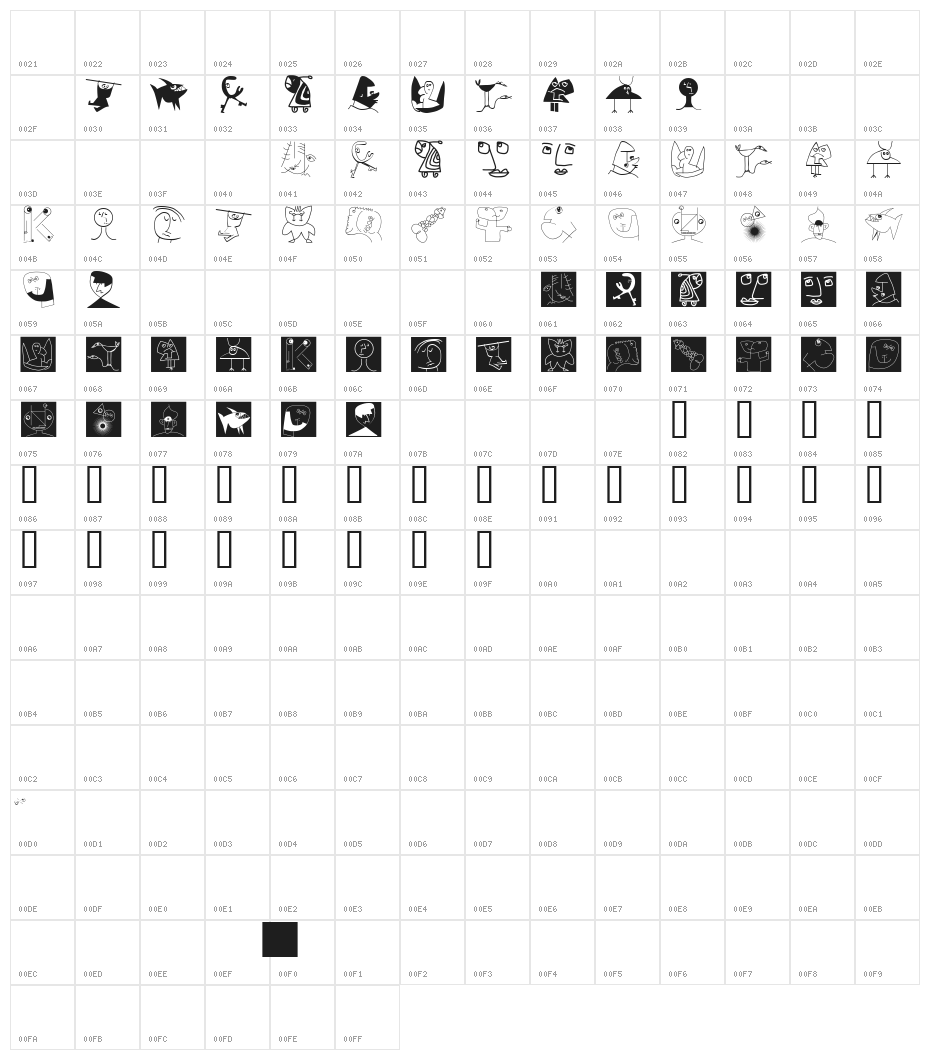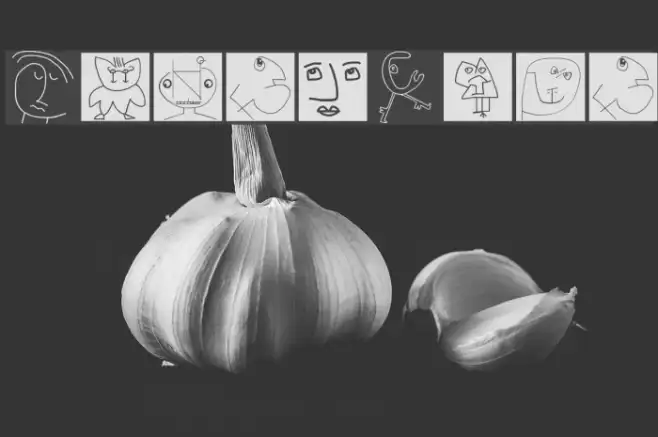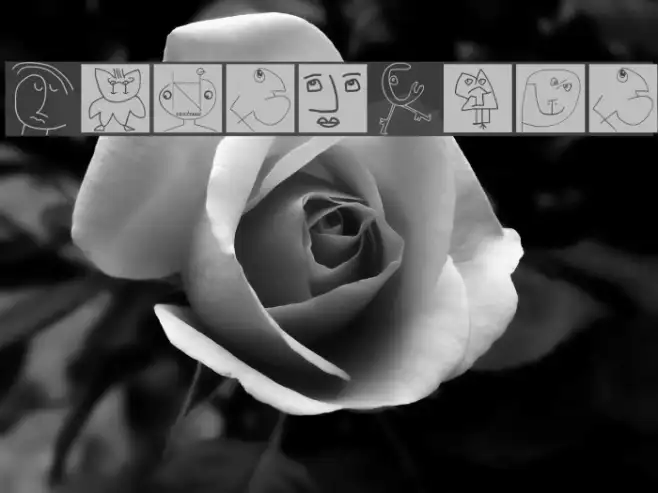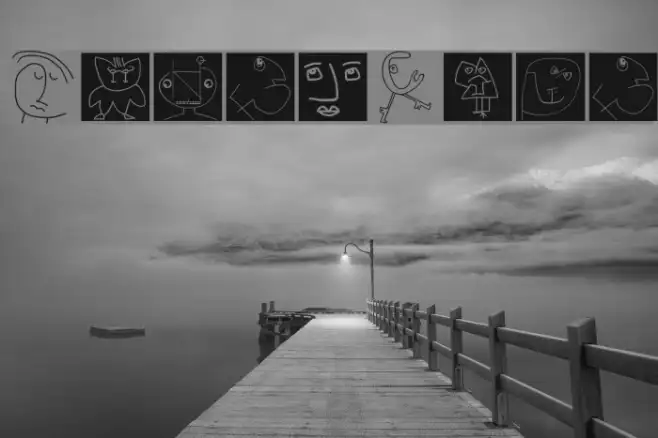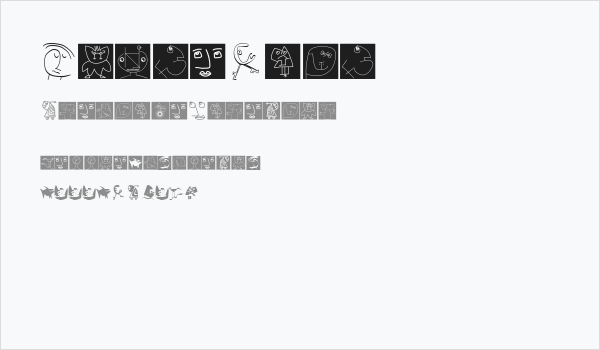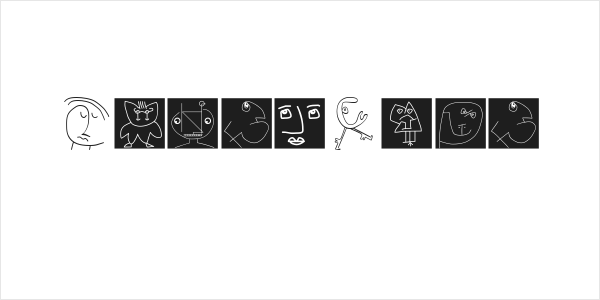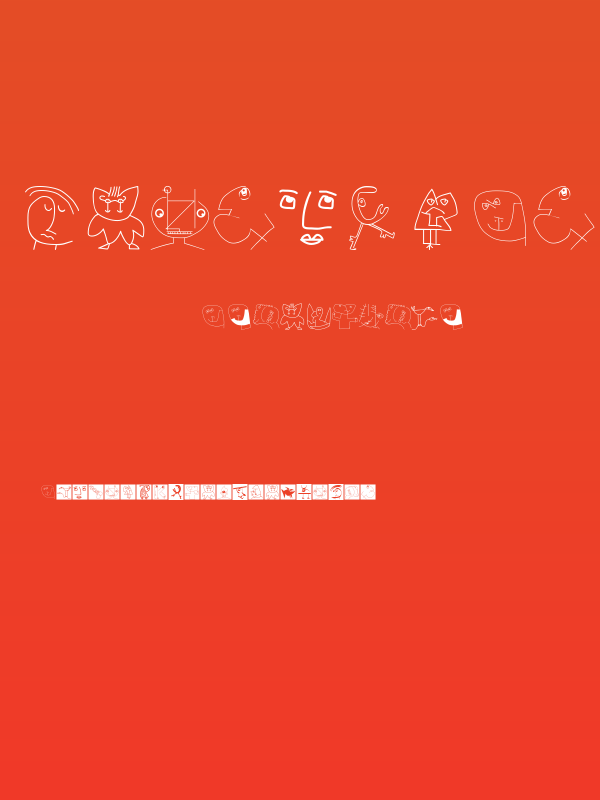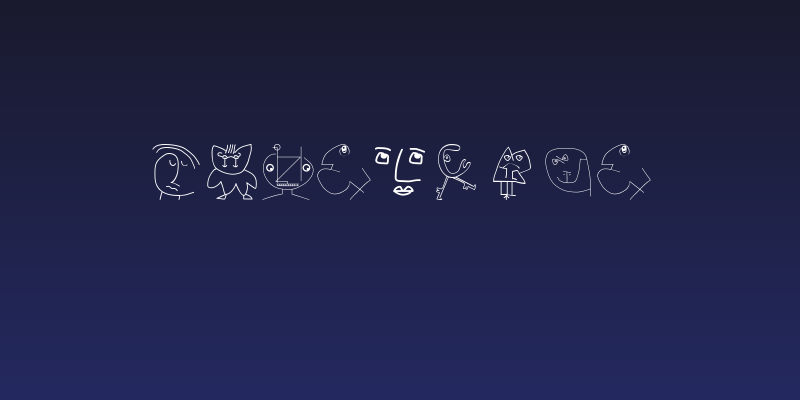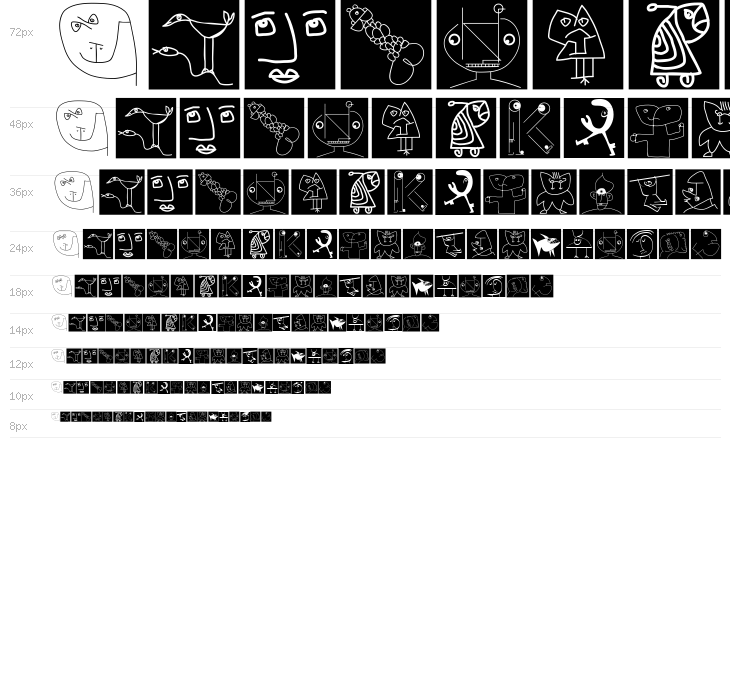
MouseBits Font
MouseBits Description
This font is a highly creative and artistic collection of characters, each designed with unique and whimsical illustrations. The characters are not traditional letters but rather abstract and playful figures that resemble doodles or sketches. Each character is distinct, featuring imaginative elements like faces, animals, and abstract shapes. The style is reminiscent of modern art, with a focus on creativity and expression rather than readability. The characters are bold and visually striking, making them suitable for decorative purposes.
| Overall Style | Modern, Artistic, Whimsical |
| Use Case | Logos, Decorative elements, Art projects |
| Proposed Projects | Ideal for creative projects such as art posters, children's book illustrations, unique branding, and decorative elements in design. |